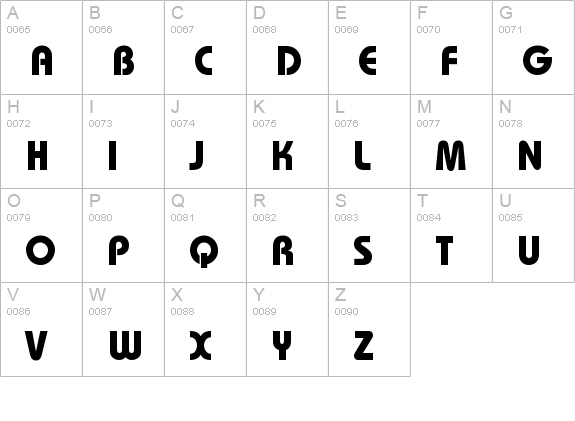
TR Bahamas Bold is a strong, high-contrast variant in the TR typeface family \xE2\x80\x94 well suited to headlines, attention-grabbing titles, and strong calls-to-action.
TR Bahamas Bold is a versatile and modern font that exudes confidence and sophistication. With its bold and striking design, this font is perfect for making a statement in any project. The strong lines and sleek curves of TR Bahamas Bold make it a standout choice for headlines, titles, and branding materials. What sets TR Bahamas Bold apart is not only its visual appeal but also its accessibility. This font is available for free download at FontsMarket.com, making it easy for designers and creatives to incorporate it into their work without any cost barriers. Whether you're looking to add a touch of boldness to your designs or make a lasting impression, TR Bahamas Bold is the ideal choice. Experience the power and elegance of TR Bahamas Bold today, and elevate your projects with this impactful font.